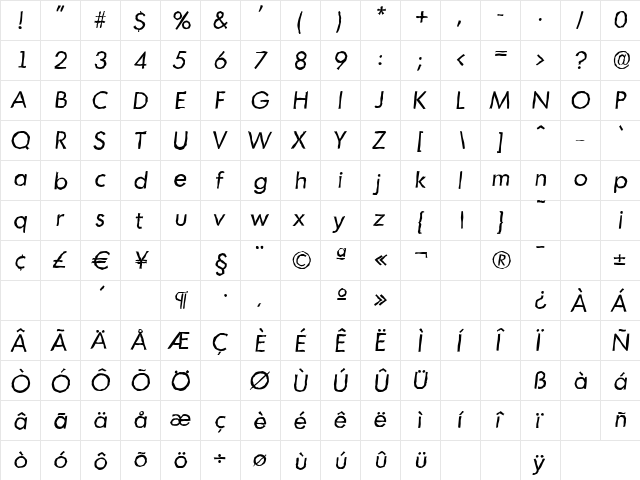
MontrealAntique Italic
Design Context for MontrealAntique Typeface
MontrealAntique wears its vintage influences proudly, with letterforms that recall mid-century signage, classic packaging, and nostalgia-driven design. Its italic angle brings a sense of urgency and motion to the letterforms.
Ideal for diner signage, record shop branding, 70s/80s-themed projects, and heritage product labels.
Font Pairing: Combine MontrealAntique with a simple slab or neutral sans — period-accurate companions reinforce the vintage feel without competing for attention.
Pro Tip: Lean into MontrealAntique's period character by pairing it with aged paper textures, muted colour palettes, and vintage illustration styles.